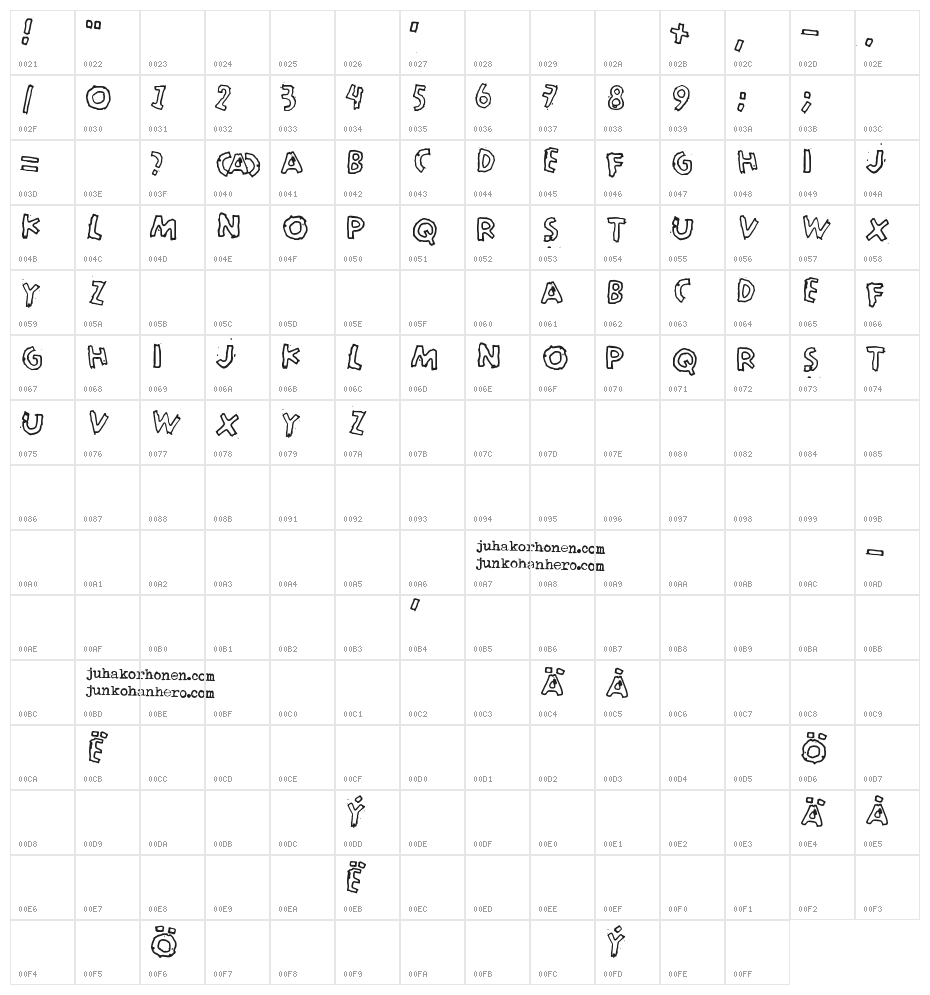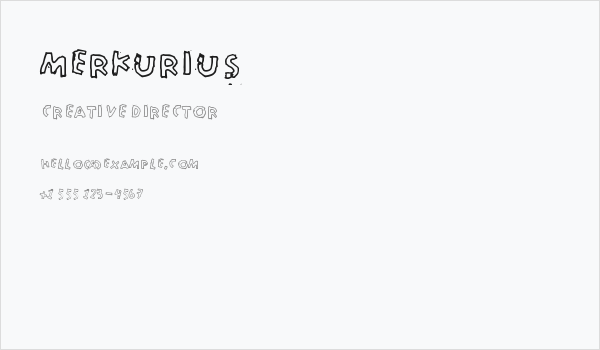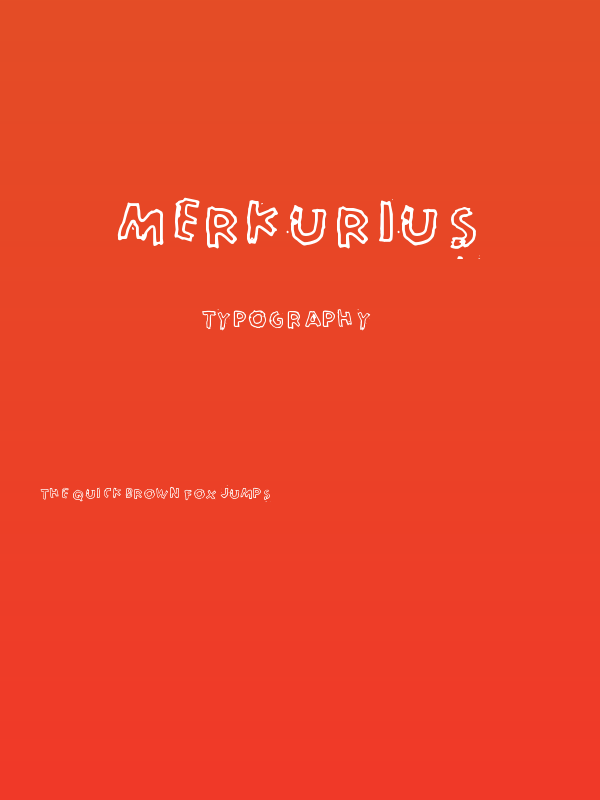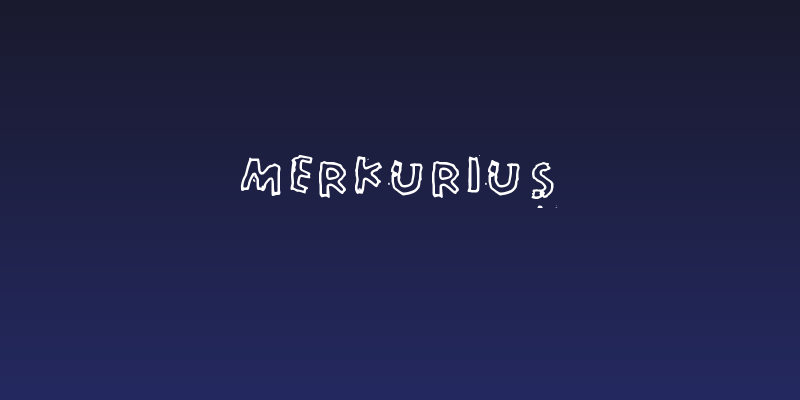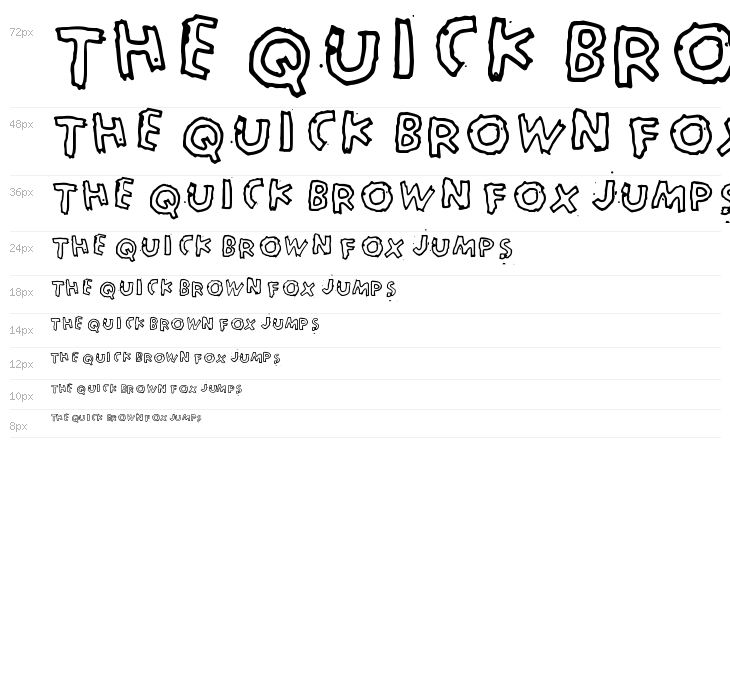
Merkurius Font
Merkurius Description
This font features a playful and hand-drawn style, characterized by irregular, wavy outlines that give each character a unique, quirky appearance. The letters are bold and slightly distorted, creating a sense of movement and energy. The uppercase and lowercase letters maintain a consistent style, with the numbers and special characters following the same whimsical design. The font's uneven lines and casual aesthetic make it ideal for projects that require a fun and informal touch.
| Overall Style | Playful, Quirky |
| Proposed Projects | Perfect for children's books, comic strips, playful branding, and creative posters. |